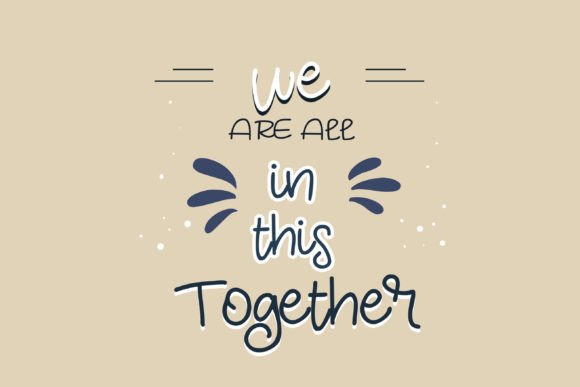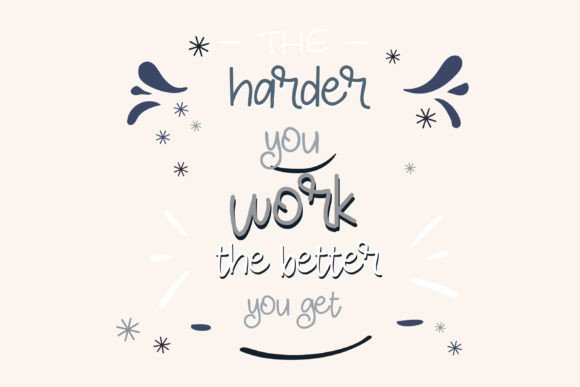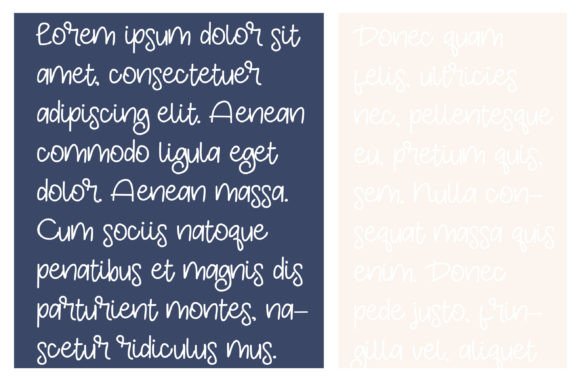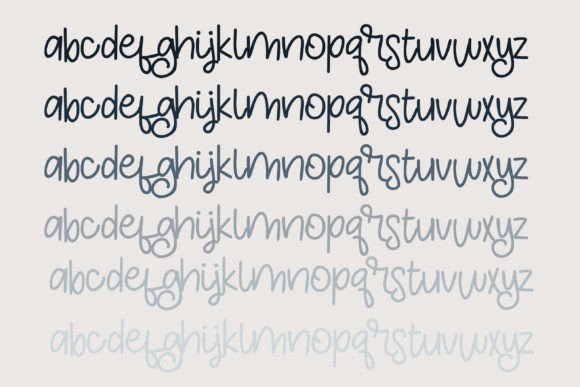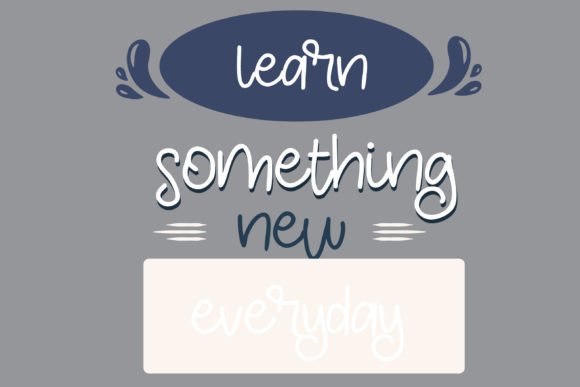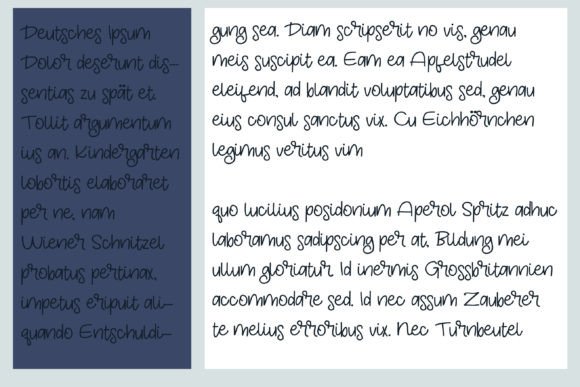
Dandering Font: Elevate Your Designs with Elegant Handwritten Typography
Are you tired of using generic, overused fonts in your designs? Look no further than the Dandering Font, a beautiful hand-written print that combines the best of both worlds – part print and part cursive. This stunning typography is perfect for designers and crafters seeking to add a touch of elegance and sophistication to their projects.
What is Dandering Font?
Dandering Font is a unique and versatile typeface that blends the clarity of print with the fluidity of cursive script. This distinctive font style offers a wide range of creative possibilities, making it an excellent choice for various design applications. Whether you’re working on a logo, branding, invitation, or social media post, Dandering Font is sure to make your project stand out.
One of the key benefits of Dandering Font is its incredible versatility. This gorgeous typography is suitable for a wide range of projects, including:
- Logos & Branding: Create a lasting impression with a custom logo that showcases your brand’s personality and style.
- Invitations: Make your special events unforgettable with beautifully designed invitations that set the tone for a memorable experience.
- Stationery: Elevate your everyday correspondence with elegant letterheads, greeting cards, and thank-you notes.
- Wedding Designs: Add a touch of romance and whimsy to your wedding stationery, decorations, and favors.
- Social Media Posts: Stand out in a crowded feed with eye-catching graphics and typography that reflect your unique voice and style.
- Advertisements: Grab attention and drive engagement with bold, creative ads that showcase your message.
- Product Packaging: Make your products shine with custom labels, tags, and packaging that reflect your brand’s aesthetic.
- Product Designs: Add a personal touch to your products with beautiful typography that complements your design.
- Labels: Create custom labels for your products, gifts, or personal items with a personal touch.
- Photography: Add a touch of elegance to your photos with custom watermarks or overlaid text.
- Special Events: Make your events unforgettable with custom signage, banners, and decorations that showcase your unique style.
Why Choose Dandering Font?
So, what sets Dandering Font apart from other typefaces? Here are just a few reasons why designers and crafters love this beautiful font:
- Unique Style: Dandering Font offers a distinctive blend of print and cursive script that adds a touch of elegance to any design.
- Highly Versatile: This font is suitable for a wide range of projects, from logos and branding to social media posts and product packaging.
- Easy to Read: Despite its elegant, cursive elements, Dandering Font remains highly legible, making it perfect for body text and headlines.
- Customizable: With its wide range of characters and ligatures, Dandering Font can be tailored to fit your unique design needs.
Tips for Using Dandering Font
To get the most out of Dandering Font, here are a few tips to keep in mind:
- Experiment with Sizes: Dandering Font looks great in a variety of sizes, from large headlines to smaller body text.
- Play with Colors: This font looks stunning in a range of colors, from bold and bright to soft and pastel.
- Mix and Match: Combine Dandering Font with other typefaces to create a unique and eye-catching design.
- Pay Attention to Kerning: Take the time to adjust the kerning and spacing to ensure your text looks beautiful and balanced.
In conclusion, Dandering Font is a stunning hand-written print that offers a unique blend of elegance and versatility. Whether you’re a designer, crafter, or DIY enthusiast, this beautiful typography is sure to elevate your projects and add a touch of sophistication to your designs. With its wide range of applications, ease of use, and customizable features, Dandering Font is an excellent choice for anyone seeking to create beautiful, professional-looking designs.